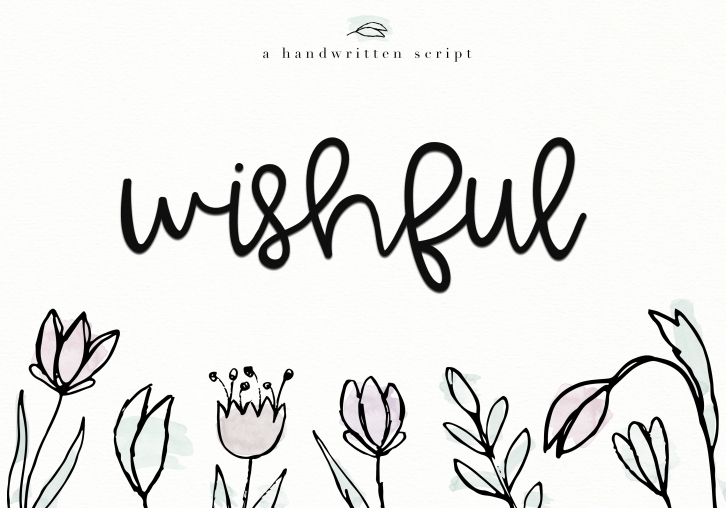
Wishful is a great font that was designed by KA Designs. Imagine the amount of combinations you can create using this font! The archive is 12.31 MB and it was released on April 16, 2018. Wishful looks beautiful on wedding invitations, greeting cards, logos, posters, labels, t-shirt designs, logos, business cards and is perfect for use in ink or watercolor works, fashion, magazines, packaging and food menus, children's books and more!